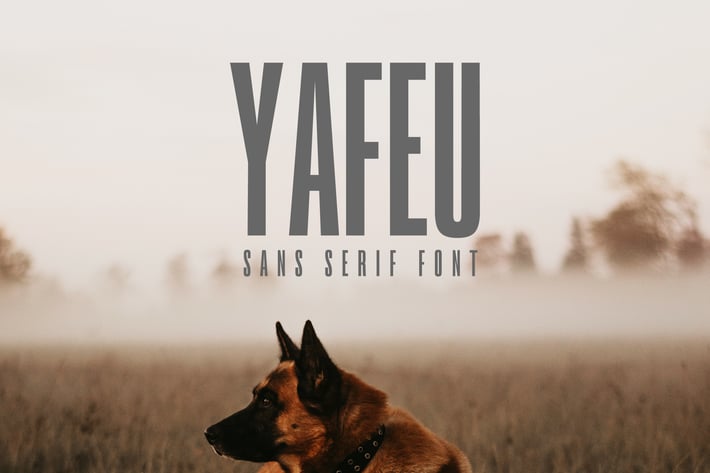
Yafeu Sans Serif Font Family
creativetacos
Yafeu Sans Serif Font Family is a luxurious, and fashionable extended sans serif typeface that looks stunning in every context. It contains 2 weights. Yafeu is perfect for magazine, logos, invitations, texts, presentations, posters, notices, titles, name card, web layouts, headers, branding, weddings, social media, product design, stationery and advertising, and other any business related.
- Font Weight: Regular and Round
Font Features:
- Uppercase Letters
- Lowercase Letters
- Number and Punctuation